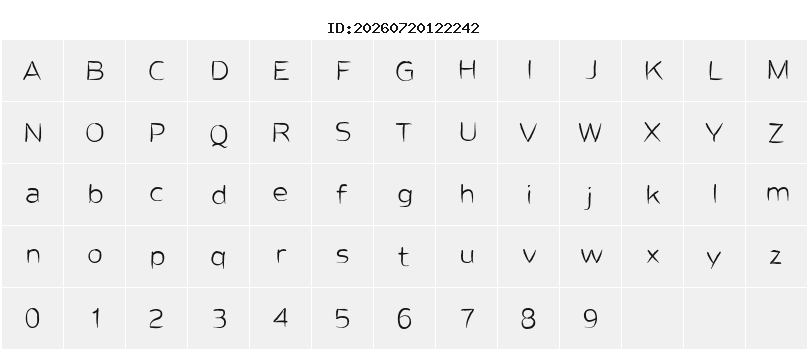
Fuder Preview
• Font Name: Fuder
About Fuder.ttf
Fuder.ttf is a modern, elegant sans-serif font designed for ultimate readability and visual harmony. Perfect for branding, headlines, web design, and print materials.